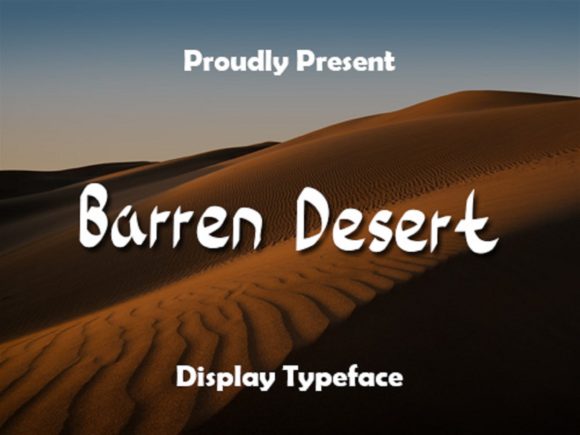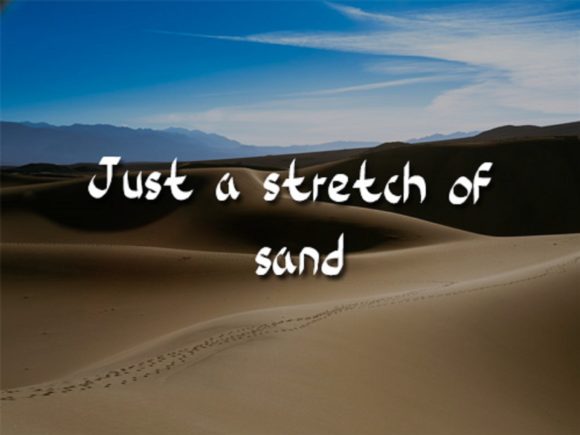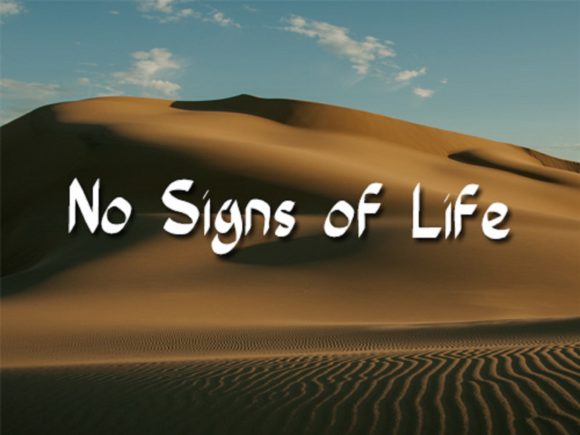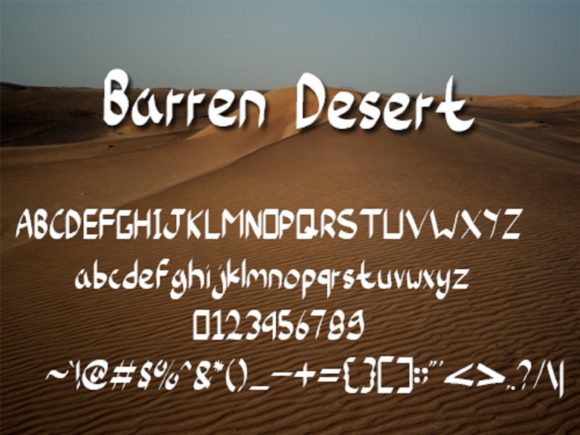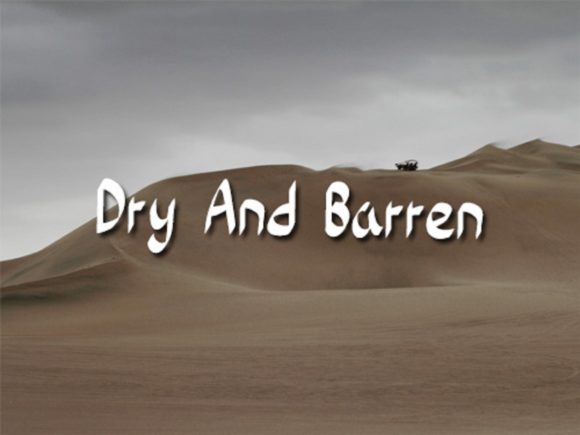
Barren Desert Font
About Barren Desert Font
Barren Desert is a simple and cute handwritten font. It is the best choice for creating eye catching logos, branding and quotes. Every letter has a unique and beautiful touch, which will make your design come alive!